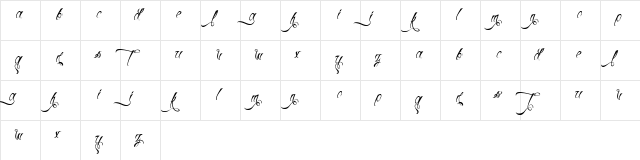
H74 Thunder Script Regular
Design Context for H74 Thunder Script Typeface
H74 Thunder Script flows with the natural rhythm of handwritten lettering, making it ideal for designs that call for warmth and personal expression.
Font Pairing: Combine H74 Thunder Script with a simple geometric sans for maximum contrast — the tension between flowing curves and clean structure is a classic typographic pairing.
Pro Tip: Pair H74 Thunder Script with a clean sans-serif for supporting text. The contrast between fluid script and geometric structure creates an elegant typographic hierarchy.